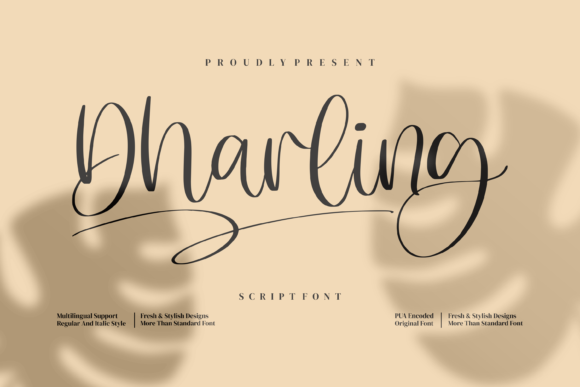
Unleash the Harmony of Elegance and Sophistication with Dharling Font: The Quintessential Script Font for Music Poster Designs
In the realm of typography, Dharling Font emerges as a captivating script masterpiece, a fusion of grace and refinement that elevates your designs to new heights. Its meticulously crafted letterforms exude a timeless allure, reminiscent of classic penmanship, yet infused with a contemporary flair. Experience the allure of Dharling Font, a symphony of visual artistry that transforms your creative visions into reality.
Step into a world where words dance with elegance and rhythm, where every letter carries a story, a melody of its own. Dharling Font, with its enchanting swashes and stylish alternates, is the maestro of typography, orchestrating a harmonious composition that resonates with your audience. Its fluidity mimics the graceful strokes of a conductor's baton, guiding your designs with finesse and precision.
Immerse yourself in the versatility of Dharling Font, a font that effortlessly adapts to a myriad of design endeavors. Be it the creation of captivating music posters, the allure of wedding invitations, the warmth of branding projects, or the allure of social media graphics, Dharling Font seamlessly blends with your vision, adding a touch of timeless elegance that captivates and enchants.
As a PUA-encoded font, Dharling Font opens up a world of creative possibilities. Accessing its extensive repertoire of glyphs and swashes is a breeze, allowing you to unleash your imagination and create designs that transcend the ordinary. Each character carries the weight of artistry, the essence of creativity, ready to be woven into your visual tapestry.
With Dharling Font as your creative companion, you'll embark on a typographic journey like no other. Its allure is undeniable, its impact profound. Experience the transformative power of Dharling Font, the script font that elevates your designs to new heights of sophistication and elegance. Embrace the symphony of creativity, let your designs sing with grace, and allow Dharling Font to orchestrate a visual masterpiece that resonates with your audience.